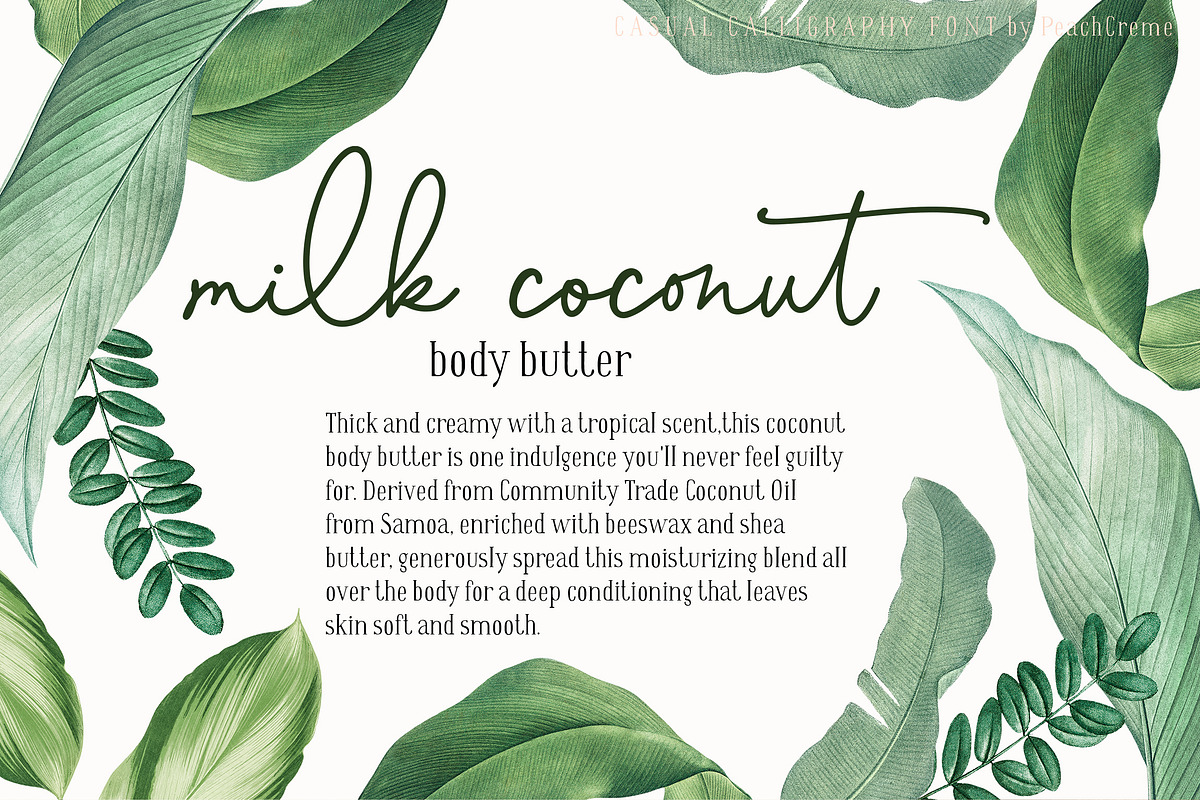
Lolita is a playful, yet chic, modern, casual font. It is perfect for branding, wedding invites and cards. Lolita includes a full set of lovely uppercase and lowercase letters, multilingual symbols, numerals, punctuation and lots of ligatures. Also, it includes beginning and ending lowercase swashes. The font has a smooth texture, so would be perfect for all types of printing techniques such as embroidery, laser cutting, gold foil etc.